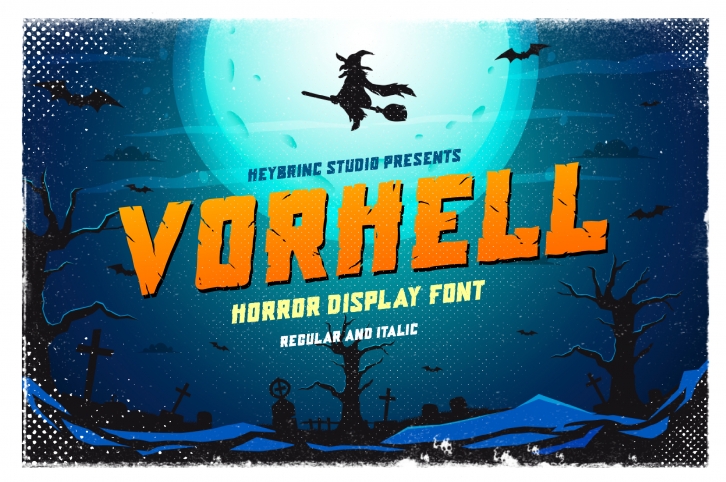
Vorhell Horror is a beautiful font that was designed by Heybrinc Studio. It's a great choice for designers and creatives who need such a font. It was released on August 29, 2017 and the file size is 20.10 MB. Vorhell Horror may give a more youthful, expressive and casual look to your project. It is a very beautiful, refined, elegant, and high-quality font.